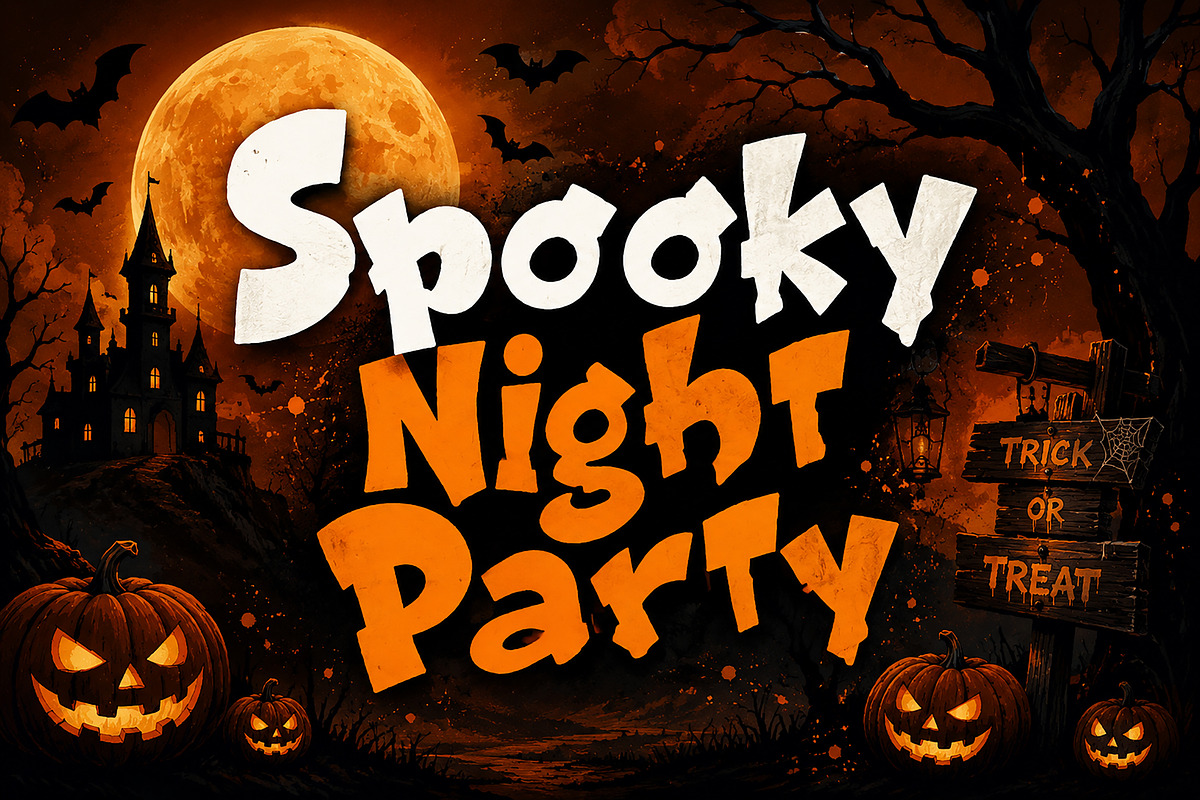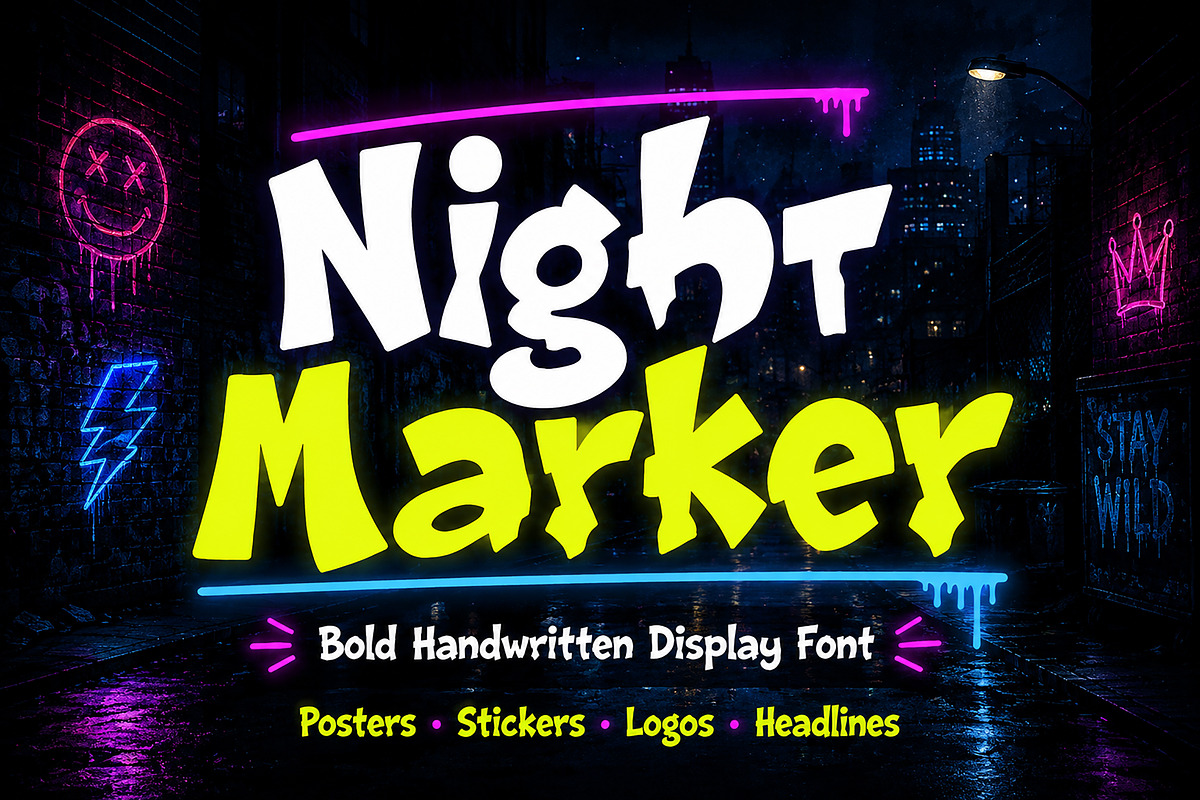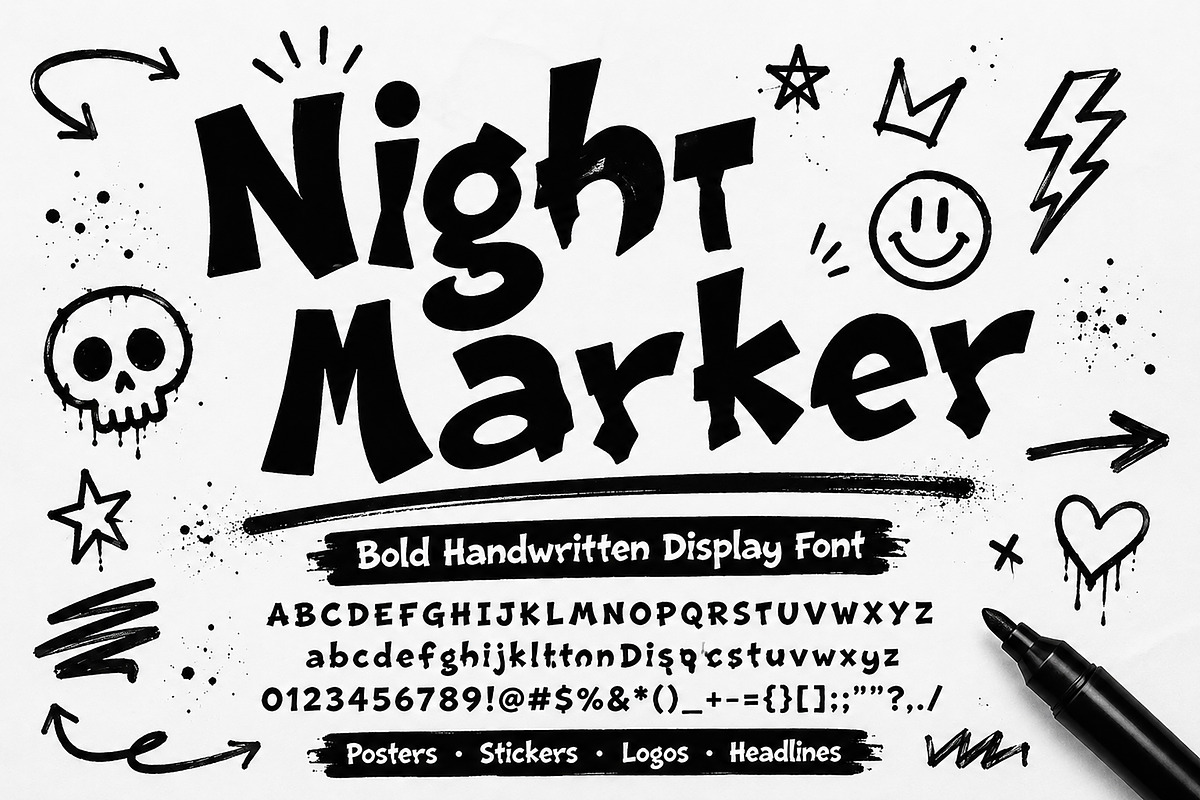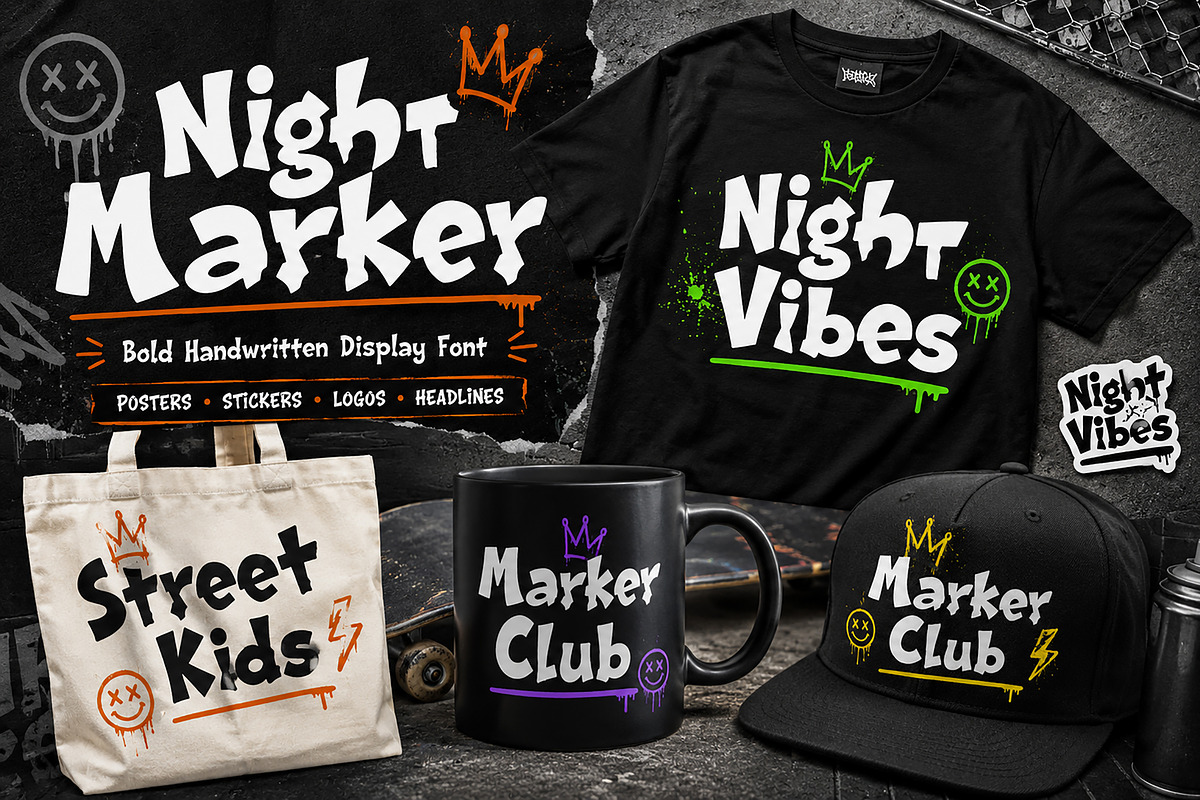
Night Marker
Night Marker – Bold Handcrafted Display Font
Night Marker is a bold and playful display font with a handcrafted marker style, perfect for posters, logos, packaging, stickers, branding, and fun creative projects.
Night Marker is a strong and expressive display font featuring bold, irregular letterforms with a handmade marker-inspired look. Its energetic style gives designs a fun, edgy, and eye-catching personality.
Perfect for posters, logos, packaging, stickers, merchandise, social media graphics, greeting cards, headlines, and creative branding, Night Marker adds a bold handcrafted touch to every project. The playful shapes make it ideal for designs that need a unique, casual, and memorable appearance.
Whether used for print or digital designs, Night Marker delivers a confident, artistic, and modern display style that stands out beautifully.
Uppercase letters, lowercase letters, numbers, punctuation, bold marker style, handcrafted appearance, irregular letterforms, playful display personality, perfect for headlines.